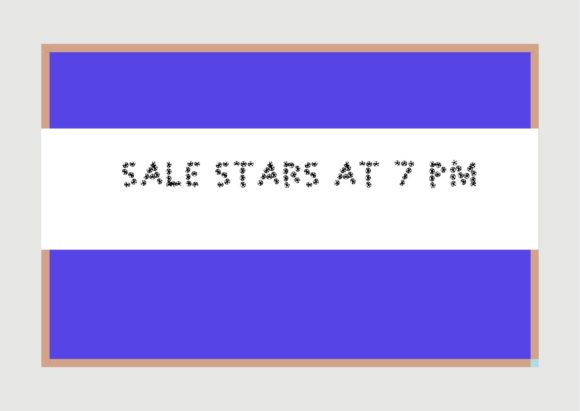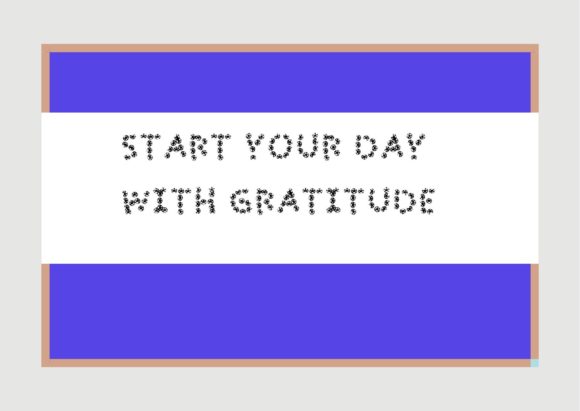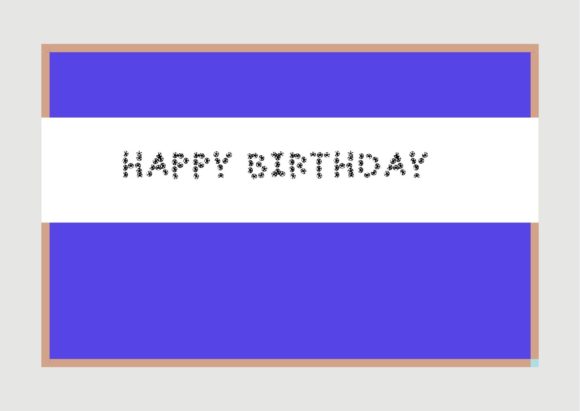
Unleash Your Creativity with Flower Stylish Font
You’ve spent hours perfecting your design, but something’s still missing. The colors are vibrant, the layout is on point, but the text just doesn’t pop. This is where the magic of typography comes in – and for designers, having the right font can make all the difference.
Enter the Flower Stylish Font, a cool and versatile decorative font that’s sure to elevate any creation. Whether you’re designing a logo, a poster, or a social media graphic, this font has the potential to take your design to the next level. With its unique and stylish flair, the Flower Stylish Font is an incredible asset to any designer’s library, offering endless possibilities for creative expression.
Key Features of Flower Stylish Font
- Font Size and Resolution: The font is designed to be highly legible at various sizes, from 12 to 72 points, and can be used at resolutions of up to 300 DPI (dots per inch) for high-quality printing.
- Unique Characteristics: Flower Stylish Font features a unique blend of modern and vintage elements, with intricate floral patterns and elegant lines that add a touch of sophistication to any design.
- Language Support: The font supports a wide range of languages, including English, Spanish, French, German, Italian, and many others, making it an ideal choice for multilingual designs and applications.
- Font Style and Weight: Flower Stylish Font is available in 5 different styles: Regular, Italic, Bold, Bold Italic, and Outline, providing designers with a range of options to suit their creative needs.
- Scalability: The font is highly scalable, making it suitable for use in various design contexts, from small text to large headlines, without compromising on legibility or visual appeal.
Designer Review: Flower Stylish Font
Overall, I think Flower Stylish Font is a beautiful and unique font that can add a touch of elegance to any design project. ✨ It has a delicate, hand-painted feel that’s perfect for wedding invitations, baby shower cards, or any other occasion that calls for a soft, feminine look.
- ✨ Unique and beautiful design that sets it apart from more generic fonts.
- ✨ Wide range of applications, from wedding invitations to branding and packaging.
- ✨ Beautifully rendered characters with intricate details.
However, I do have a few reservations about this font. ⚠️ Firstly, it can be quite dense and may not be the best choice for text-heavy designs or body copy. Additionally, some of the characters may be difficult to read in smaller sizes or at a distance.
- ⚠️ Can be quite dense and may not be suitable for text-heavy designs.
- ⚠️ Some characters may be difficult to read in smaller sizes or at a distance.
- ⚠️ Limited language support, which may be a concern for international clients.
Overall, I would recommend Flower Stylish Font to designers who are looking for a unique and elegant font for a specific project or occasion. However, I would caution against using it as a primary font for a larger design project or for text-heavy designs.
Flower Stylish Font is ideal for creative projects, such as:
– Baby shower and birthday party decorations
– Greeting cards and gift tags
– Social media graphics and branding
Tips for Getting the Most Out of Flower Stylish Font
For optimal results, use Flower Stylish Font in combination with other decorative fonts and creative design elements, such as illustrations and graphics. Experiment with different font sizes, colors, and arrangements to create visually appealing and unique designs.